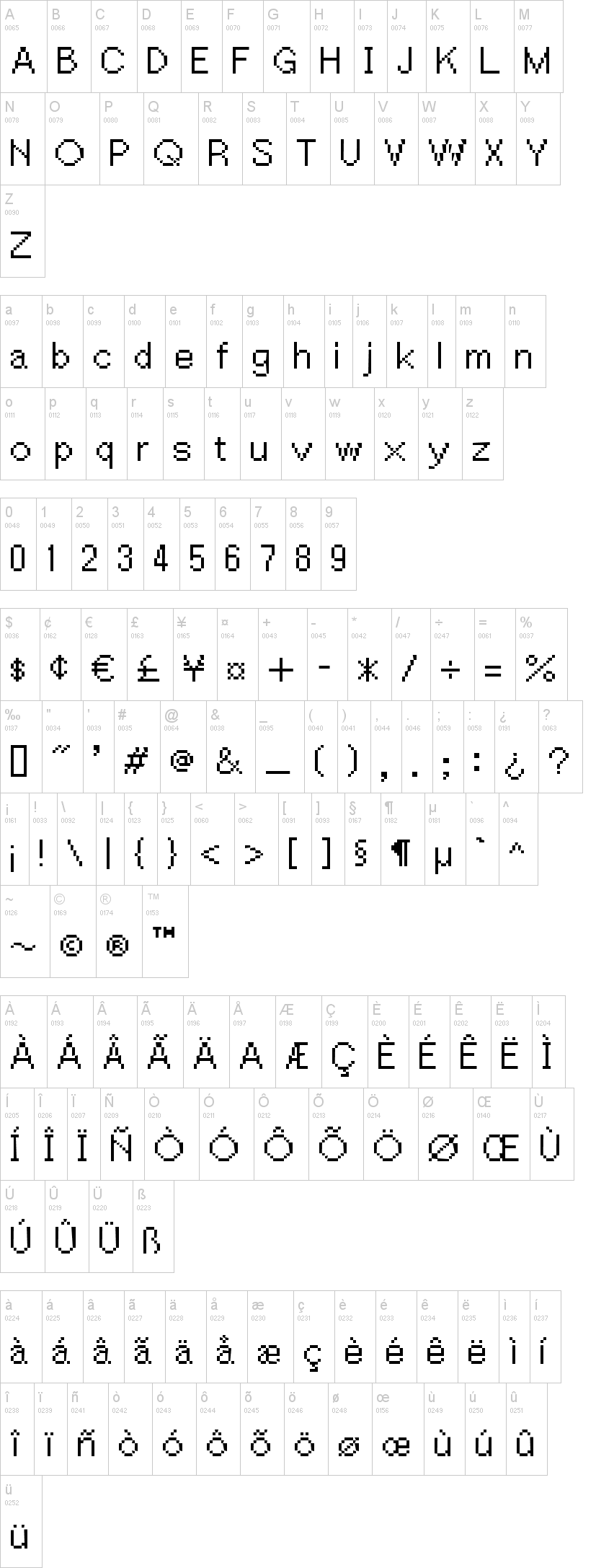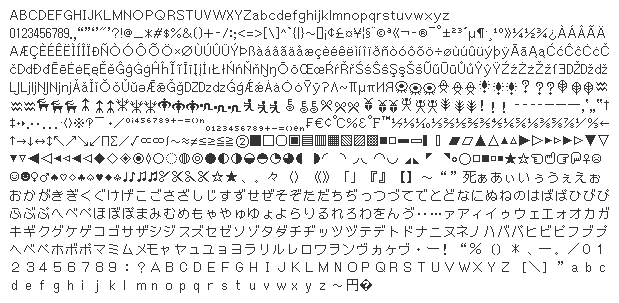
Note of the authorIgiari is a proportional sans-serif pixel font recreation based on the original main text font appearing throughout the Ace Attorney video game series for the GameBoy Advance and Nintendo DS, known as Gyakuten Saiban in Japan, developed and released by Capcom between 2005 and 2011.
This font includes the full set of Japanese hiragana and katakana characters appearing in the Japanese version of Phoenix Wright: Ace Attorney and many additional characters, each one of them designed to match the spirit and style of the original font design. As a bonus, I also included the unique Borginian language dingbat glyphs.
847 characters total
Proportional sans-serif typeface
Countless additional special characters, diacritic variants, etc.
Complete original Japanese hiragana and katakana character sets
The unique Borginian in-game symbols in different variations